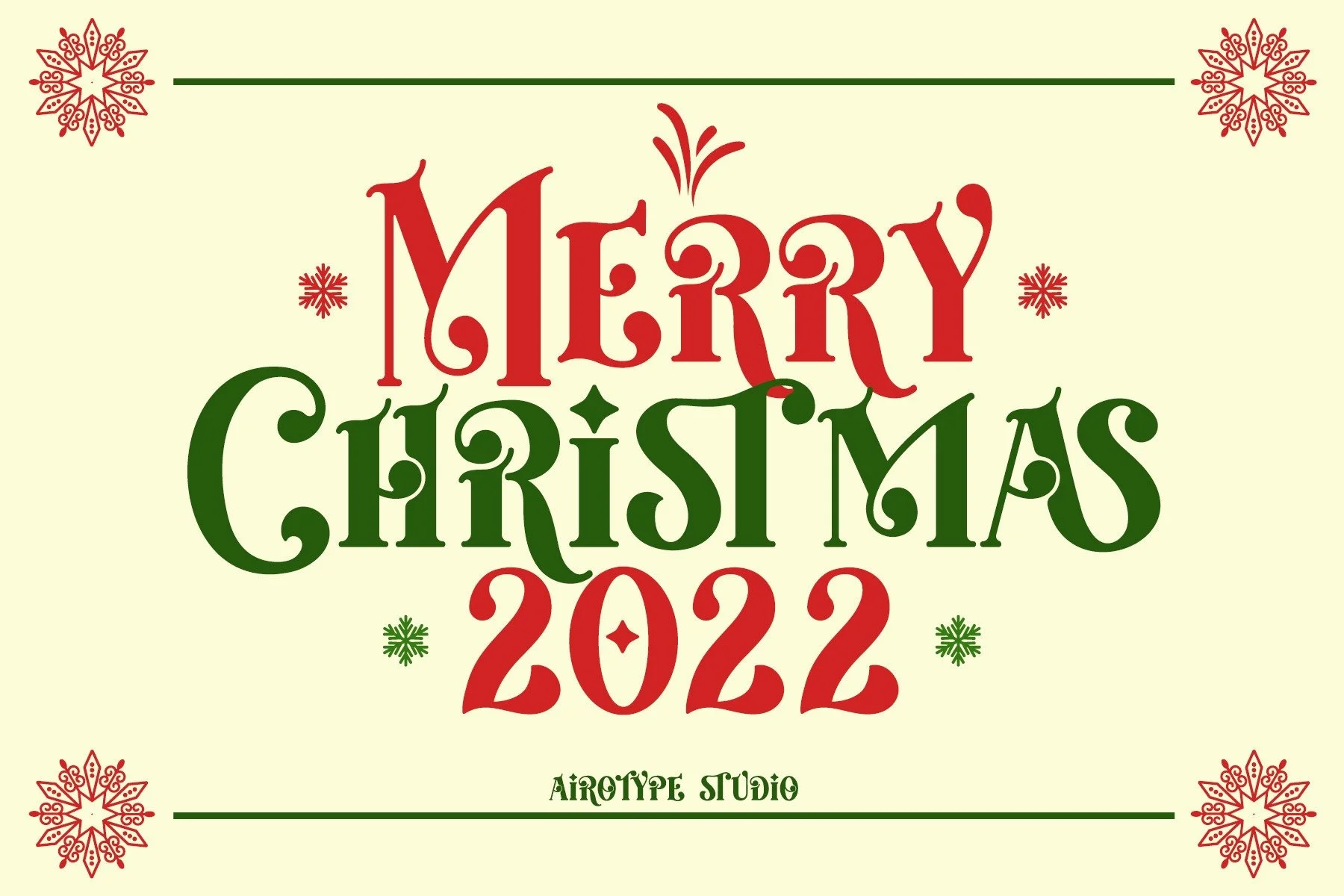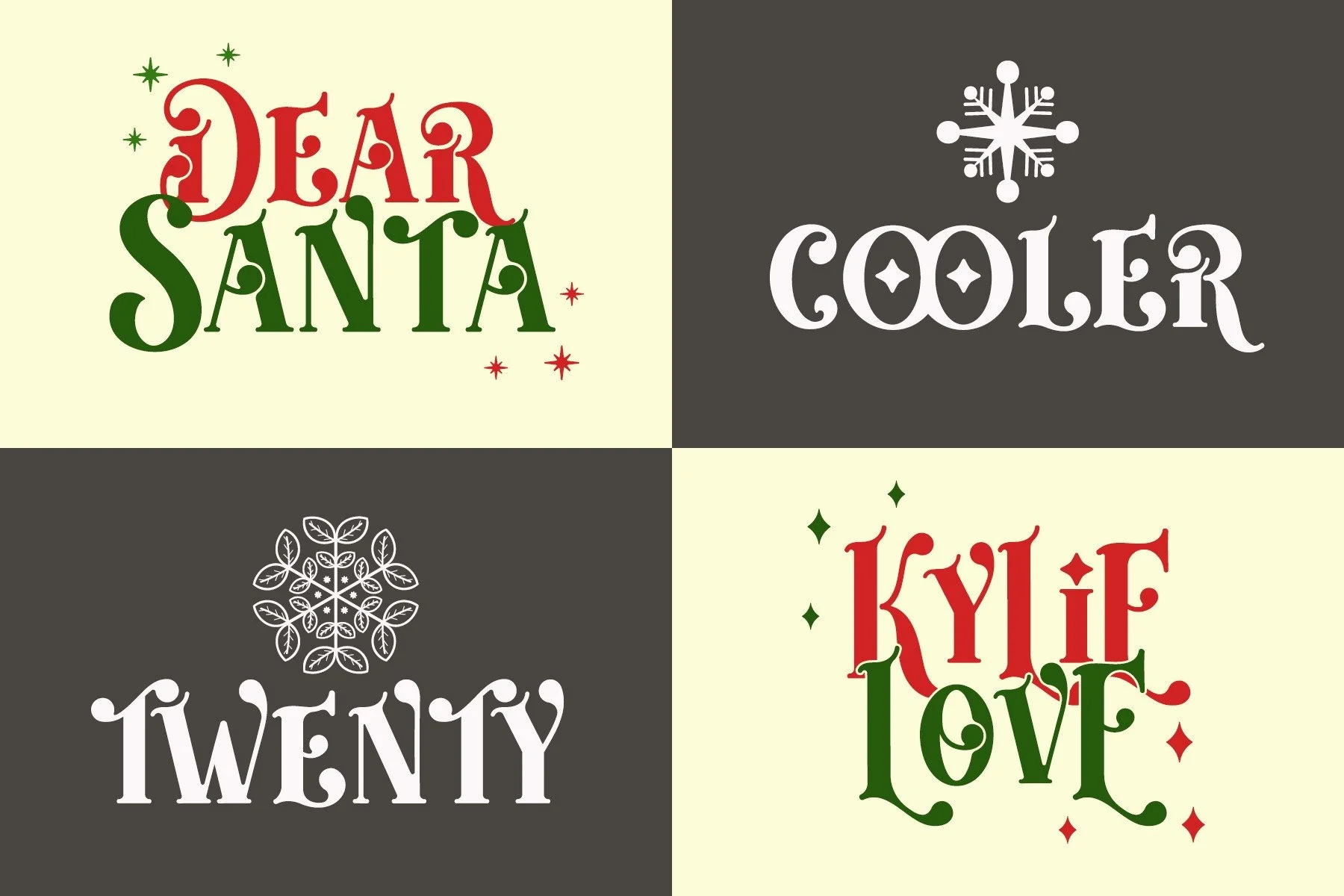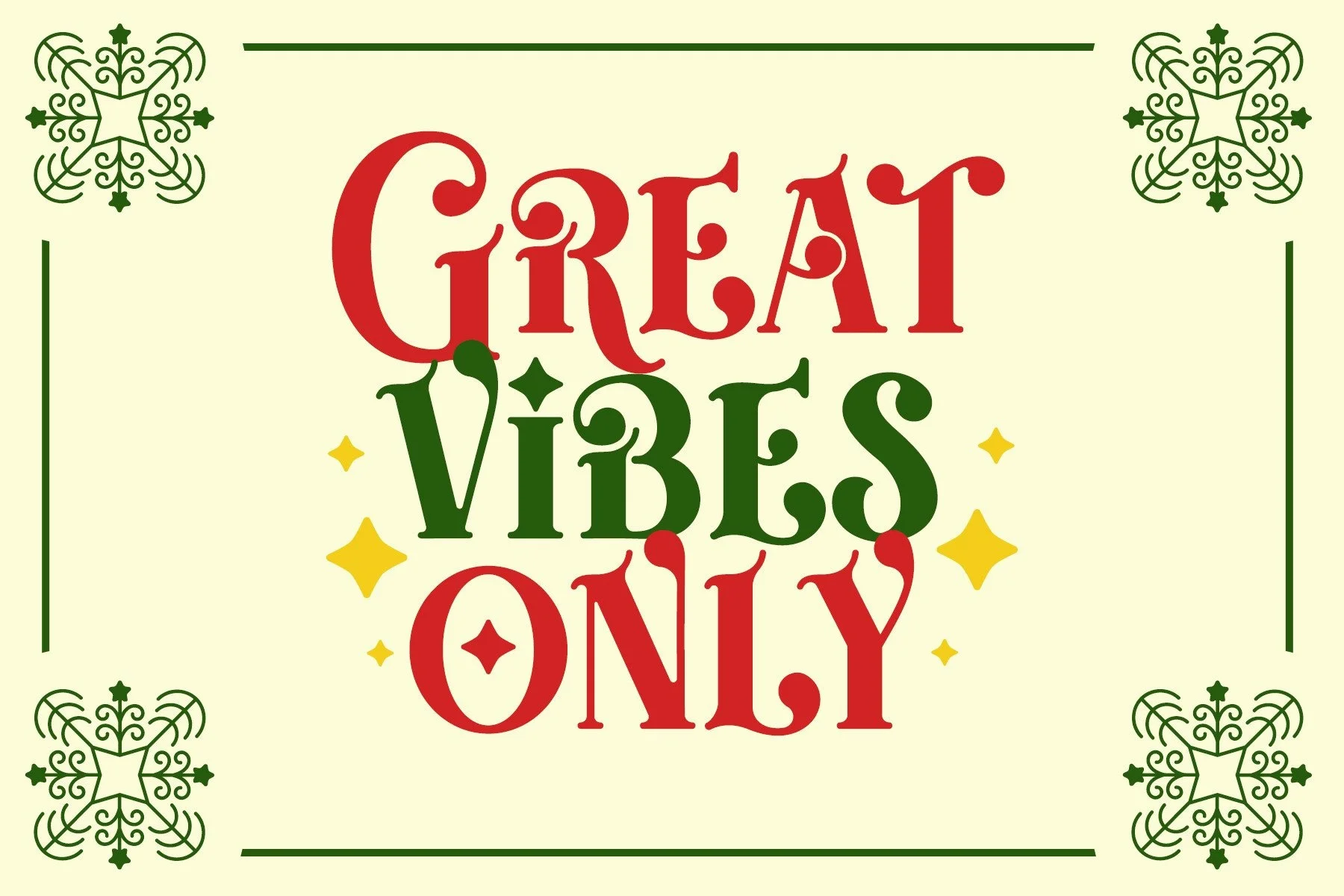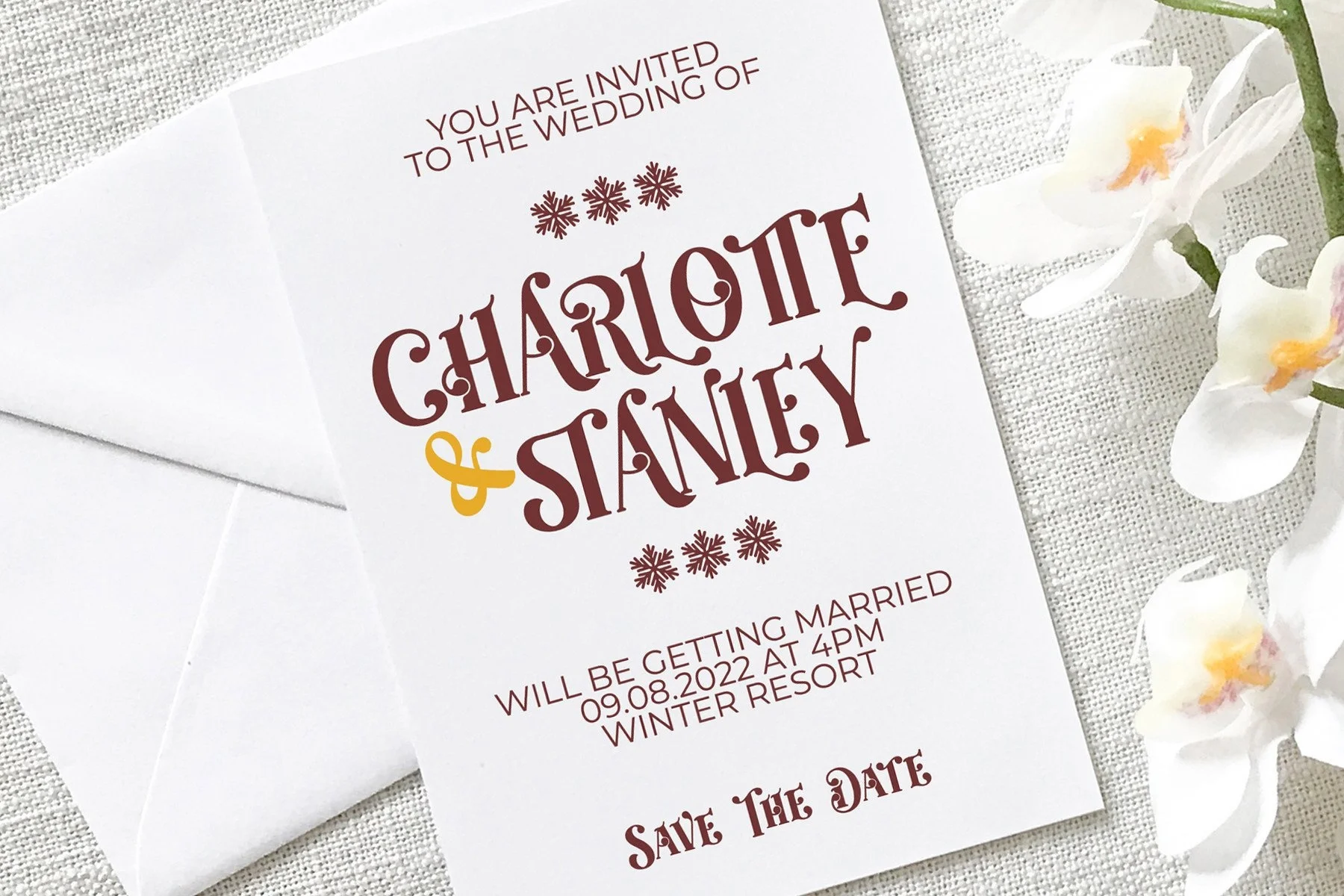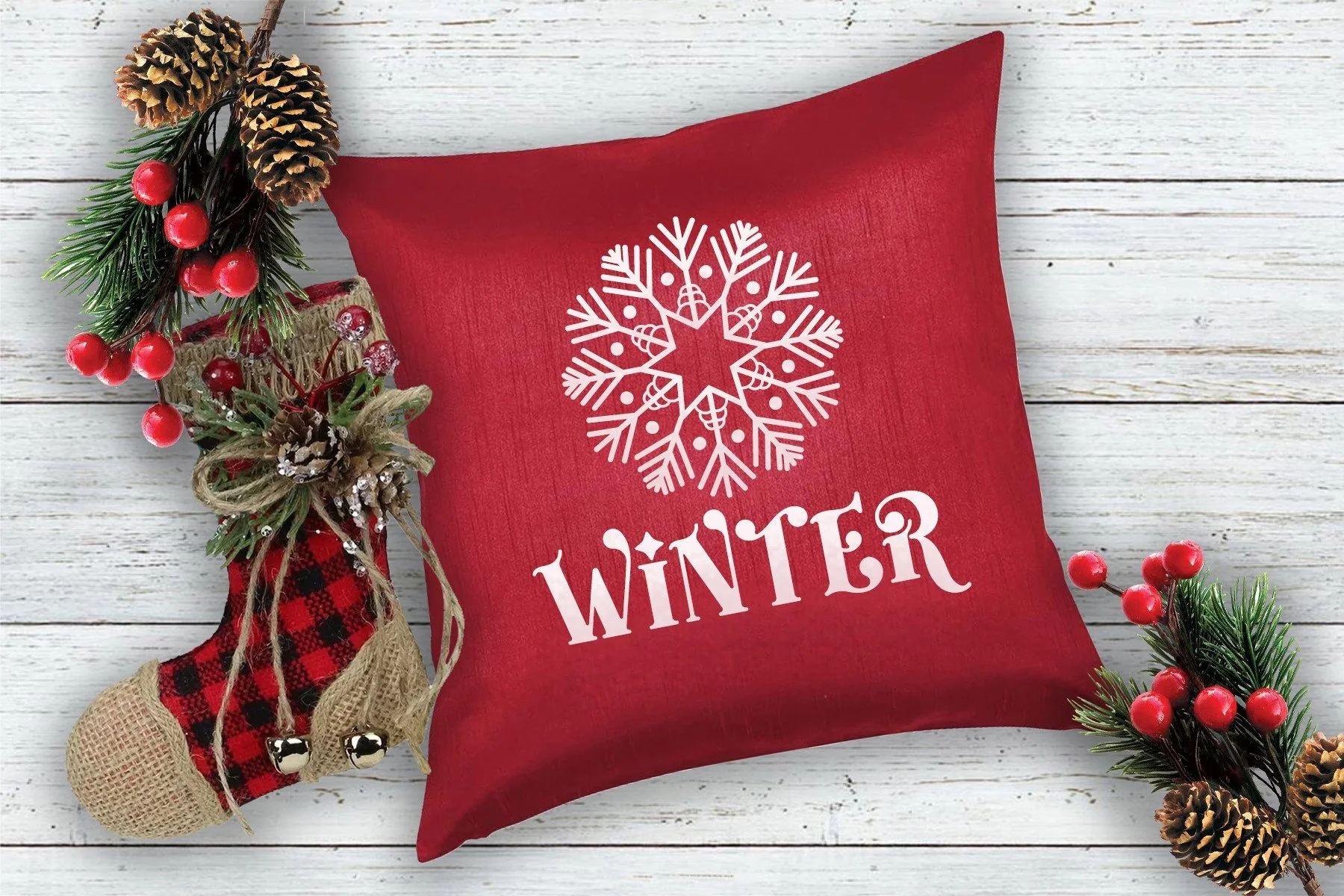
Christmas Moonday Font
This celestial font is perfect for lunar Christmas celebrations, moonlit holiday parties, celestial Christmas decorations, astronomical holiday events, starry Christmas nights, cosmic seasonal branding, dreamy Christmas invitations, nocturnal holiday displays, mystical Christmas themes, and enchanted moonlit seasonal messaging.
Christmas Moonday Font is exciting because it captures the mystical beauty and serene elegance of Christmas celebrations under moonlight through its celestially inspired letterforms that combine the wonder of Christmas with the ethereal magic of lunar illumination. The font features gracefully curved characters with moon-phase details and starlit accents that evoke the peaceful majesty of Christmas Eve nights when the moon casts silver light on snow-covered landscapes, incorporating crescent flourishes and celestial elements that create typography as enchanting as moonbeams dancing on Christmas ornaments. Each letter showcases the dreamy quality and otherworldly beauty that occurs when Christmas magic meets the timeless mystery of the moon, with flowing curves and cosmic touches that transform ordinary text into celestial poetry. The design perfectly captures the unique atmosphere of Christmas nights illuminated by moonlight, creating typography that feels both earthly festive and cosmically magical.
The Christmas Moonday Font family includes lunar-inspired variations: Regular, Bold, Light, Crescent, and Celestial versions. The collection features special astronomical elements including moon phase accents, star cluster details, cosmic swirls, and celestial ornaments. Additional components include lunar borders, starry frames, cosmic decorations, and mystical ornamental designs that enhance the font's Christmas moonday appeal and create cohesive celestial holiday themes.
Astronomical enthusiasts and mystical celebrants will find Christmas Moonday Font to be an exceptional resource for creating otherworldly holiday communications that celebrate the cosmic beauty and celestial wonder of Christmas under the moon's gentle light. This ethereally crafted font transforms ordinary Christmas messaging into mystical expressions that capture the profound connection between earthly Christmas joy and the infinite beauty of the night sky.
The typeface includes comprehensive character support with celestial styling that maintains excellent readability while conveying the mystical beauty and cosmic wonder of moonlit Christmas celebrations. The font's dreamy design ensures enchanting results across both intimate lunar applications and grand astronomical holiday displays.
Perfect for astronomy clubs, mystical Christmas events, lunar celebrations, and cosmic holiday themes, this font delivers celestial visual impact that communicates mystery, wonder, and the magical connection between Christmas celebration and the eternal beauty of the moon and stars that have watched over Christmas nights throughout history.